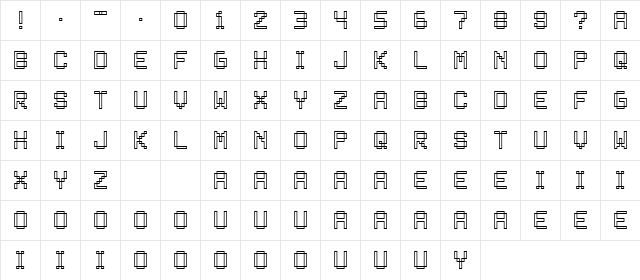
Bitless Regular
| Foundry | Krafti lab |
| Designer | Onur Cem TAN |
Design Context for Bitless Typeface
Bitless takes a measured approach to typography — its balanced proportions and neutral character make it a reliable workhorse for both digital and print work.